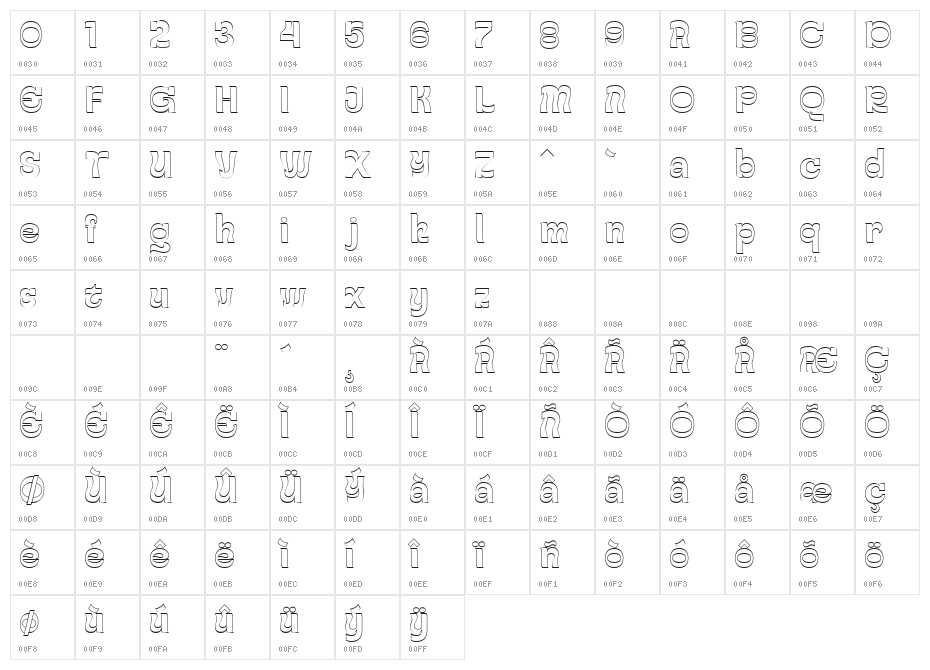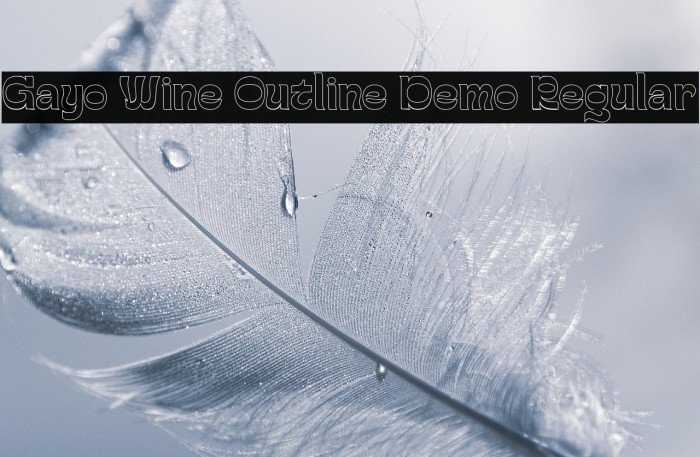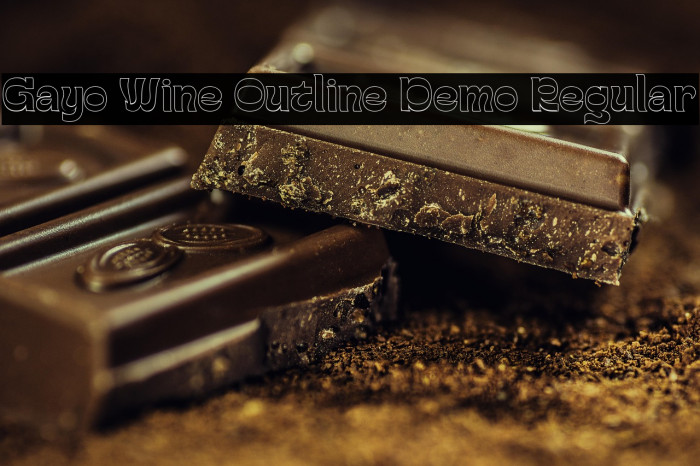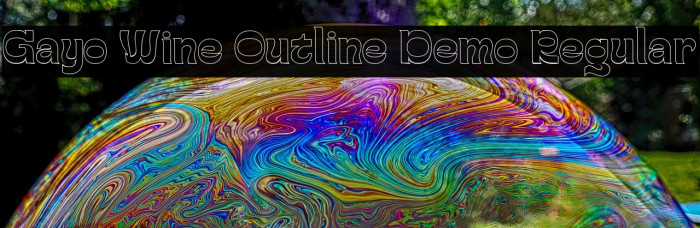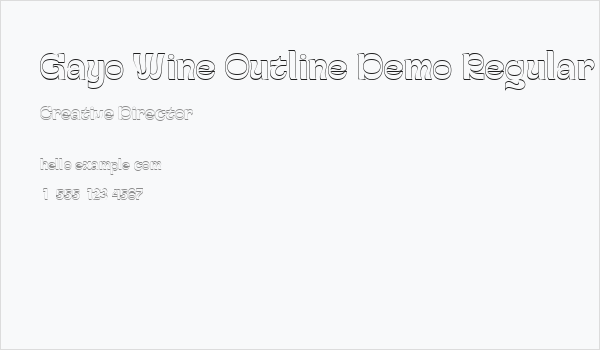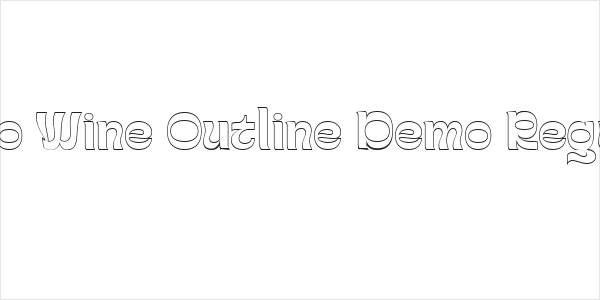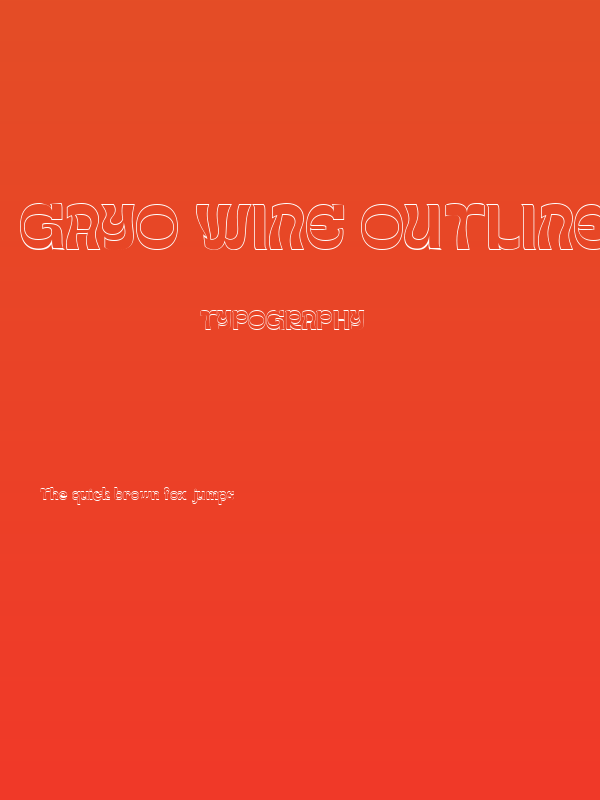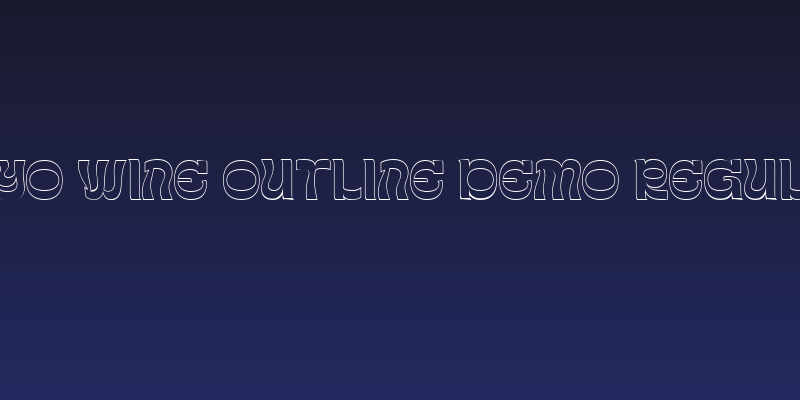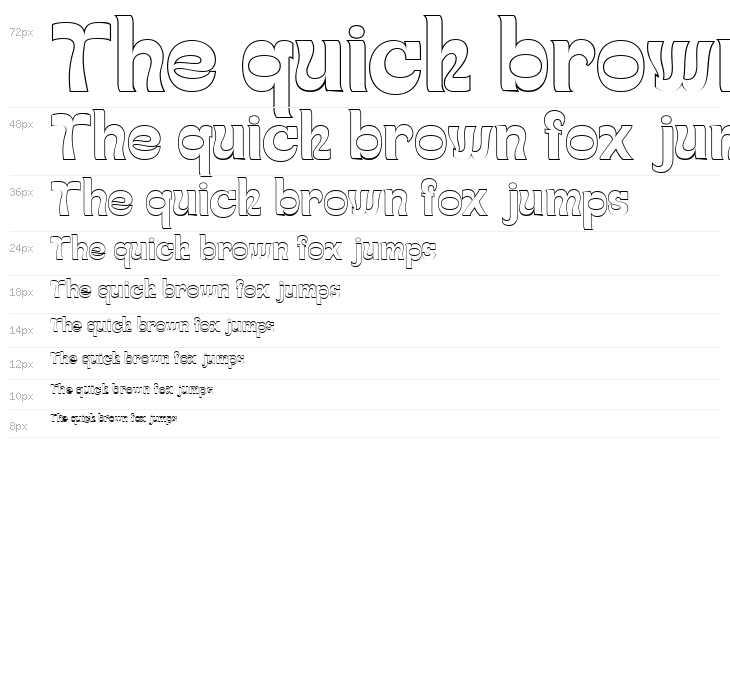
Gayo Wine Outline Demo Regular Font
Gayo Wine Outline Demo Regular Description
This font features a unique outline style that combines modern and decorative elements. The uppercase and lowercase letters are designed with a playful yet structured form, creating a sense of movement and fluidity. The numbers and special characters maintain this cohesive style, making the font versatile for various design needs. The outline effect adds a layer of depth and interest, making it suitable for eye-catching headlines and creative projects.
| Proposed Projects | Ideal for posters, logos, branding, and creative headlines. |